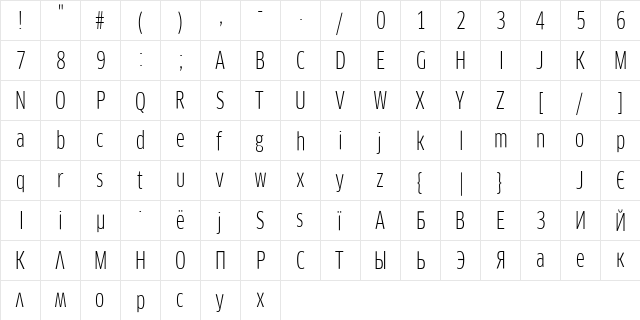
ClanPro-CondBook Font Preview
ClanPro-CondBook ClanPro-CondBook
ClanPro-CondBook Font Details
| Style | ClanPro-CondBook |
| Foundry | Lukasz Dziedzic |
| Designer | Lukasz Dziedzic |
Design Context for ClanPro-CondBook Typeface
ClanPro-CondBook offers clean, dependable letterforms without strong stylistic allegiance, making it a practical choice for designers who need flexibility. Its narrow stance lets it pack a punch even in space-constrained designs.